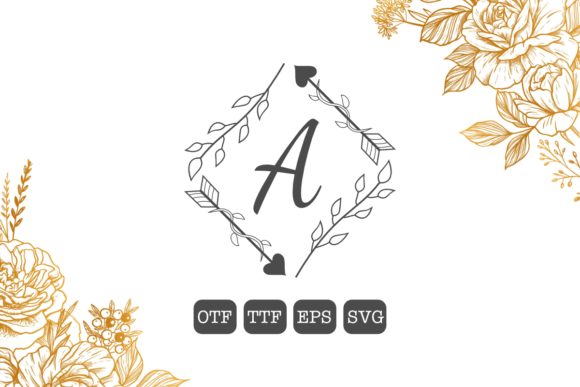
Embark on a typographic odyssey with Armiana Monogram Font, the mesmerizing decorative typeface that will captivate your audience and ignite your creativity. Step into a world of enchanting letters entwined with delicate leaves and blooming flowers, where elegance and nature harmoniously converge.
Crafted by the visionary Perkasya Akram, Armiana Monogram Font is not just a collection of characters; it's an artistic masterpiece designed to transform your words into captivating visual statements. Each letter is a testament to meticulous craftsmanship, adorned with intricate details that evoke a sense of timeless beauty.
Whether you're crafting a sophisticated logo, designing elegant invitations, or simply adding a touch of whimsy to your digital creations, Armiana Monogram Font is the perfect choice. Its versatility knows no bounds, effortlessly adapting to a myriad of design styles.
Indulge in the charm of Armiana Monogram Font and elevate your projects to new heights. Let its captivating allure weave its magic, enchanting your audience and leaving an unforgettable impression. Embrace the artistry, embrace the enchantment, and embrace the boundless possibilities that await you with Armiana Monogram Font.